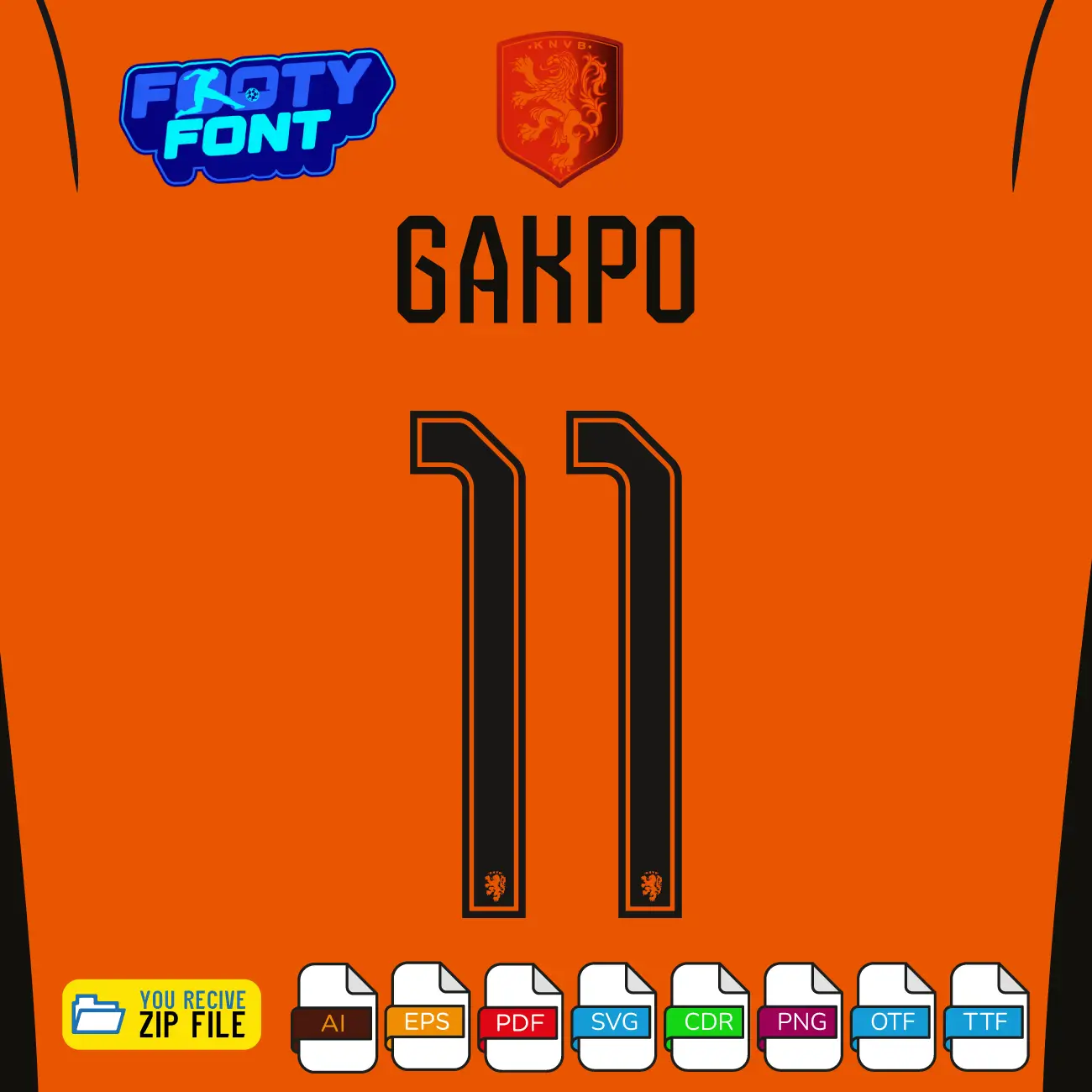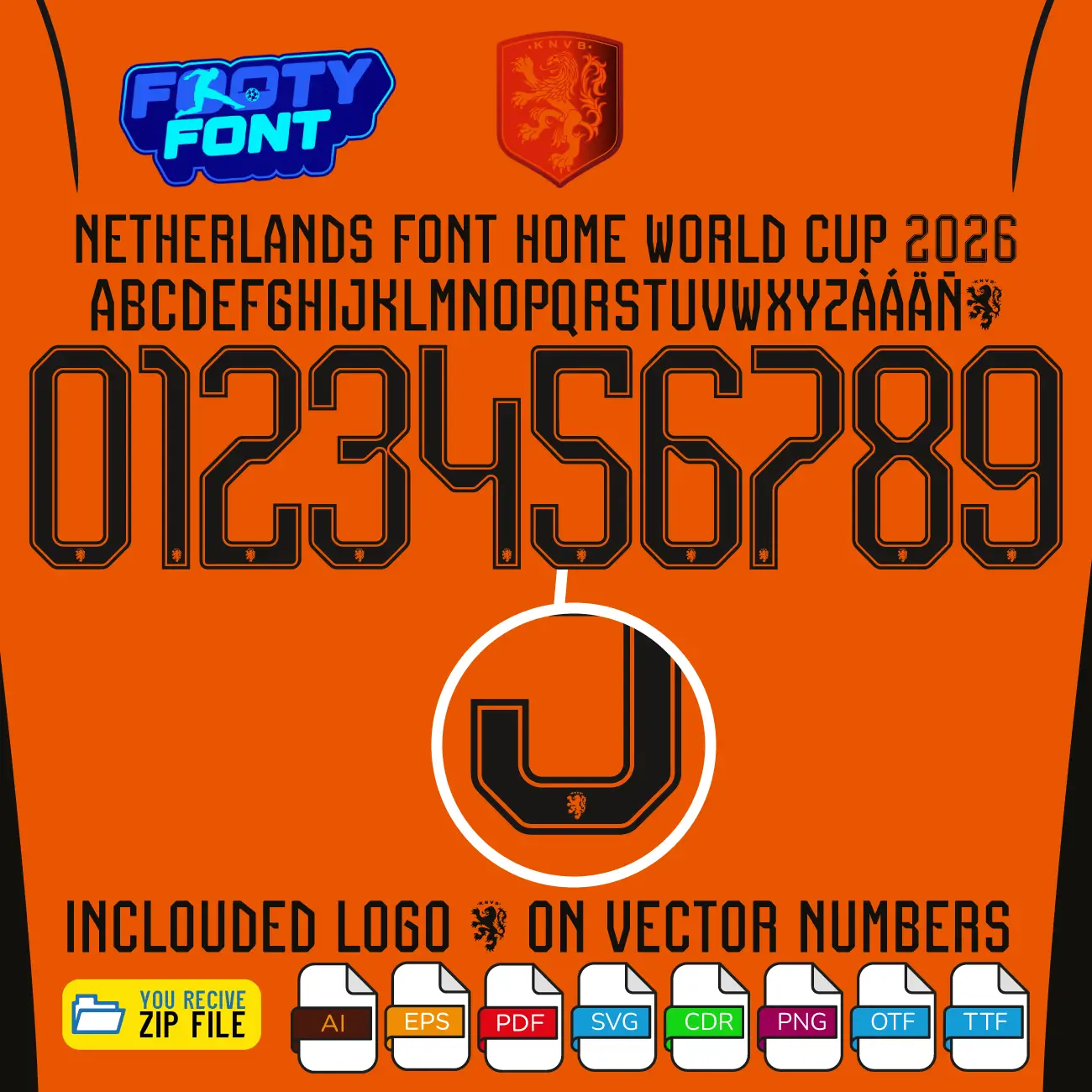
Netherlands 2026 Football Font
Bring the legendary Total Football style to your designs with this font football, inspired by the Netherlands 2026 World Cup home kit. This high-quality typeface is meticulously designed to replicate the sleek, modern lettering worn by the Dutch National Team. It features striking black numbers with a sharp internal line detail that perfectly complements their world-famous Oranje home jerseys.
This font captures the elite style worn by global superstars like Cody Gakpo, captain Virgil van Dijk, and Xavi Simons. As the Netherlands prepares to compete on the world stage, this home font is an absolute must-have for fans creating custom jersey designs, digital art, streetwear, or matchday posters.
Composite image showing Donyell Malen wearing the classic orange home jersey alongside the complete character set of the Netherlands Font World Cup 2026 Home.
A complete look at the Netherlands Font World Cup 2026 Home, featuring the full number set and a real-world match photo of Donyell Malen.
Use this font to bring authentic Dutch football style into your designs-whether for custom jersey graphics, fan merchandise, posters, or social media content.
Netherlands Font World Cup 2026 Home showing the complete alphabet and black numbers with inner line details.
Netherlands Font World Cup 2026 (Home Kit)